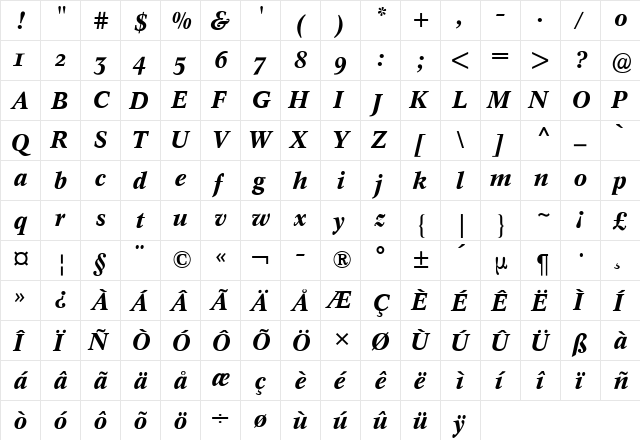
Concorde Expert BQ Medium Italic
Design Context for Concorde Expert BQ Typeface
Concorde Expert BQ takes a measured approach to typography — its balanced proportions and neutral character make it a reliable workhorse for both digital and print work. The dynamic lean of this cut emphasises speed and emphasis in any layout.
Pro Tip: Use Concorde Expert BQ for emphasis, pull quotes, and subheadings where its slanted energy can add rhythm to the layout.